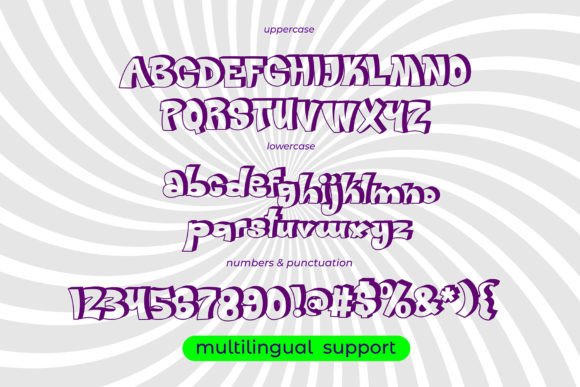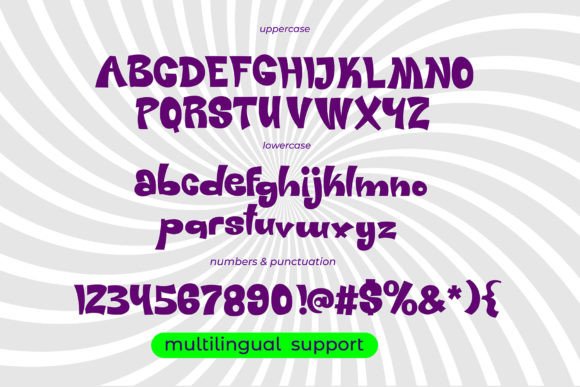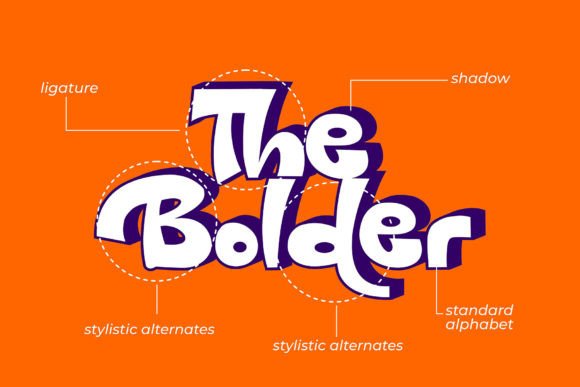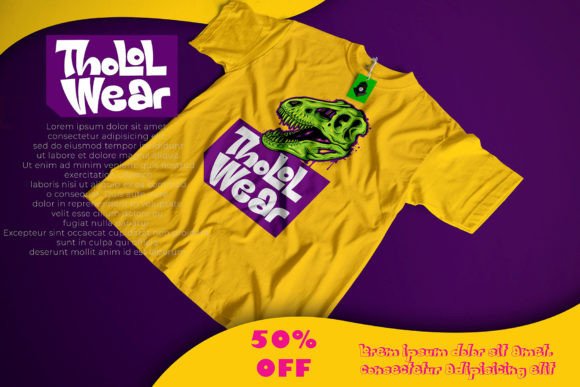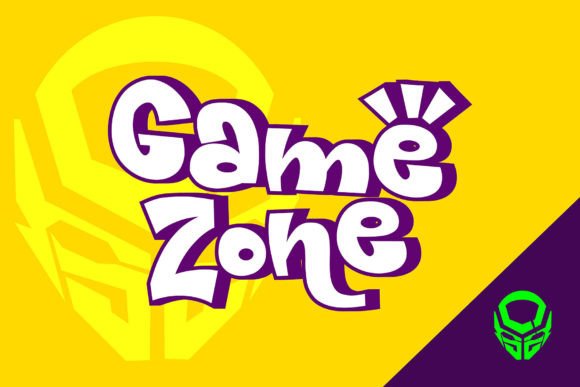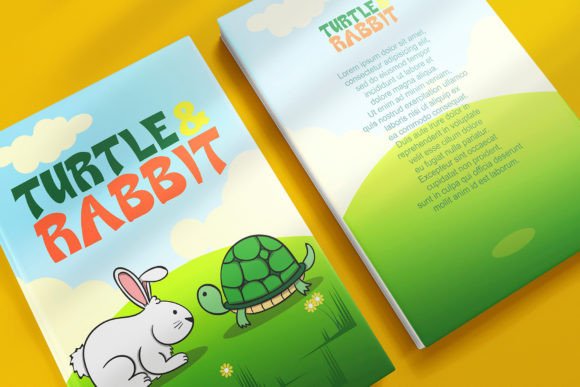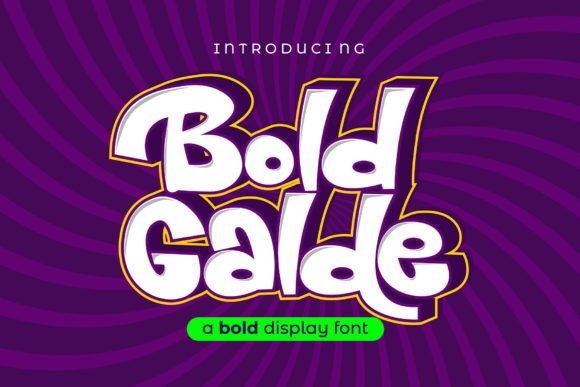
Introducing Bold Galde Font: The Perfect Choice for Kids’ Design Projects
Are you looking for a font that can add a touch of playfulness and charm to your design projects aimed at children? Look no further than Bold Galde Font! This adorable display font is specifically designed to capture the attention of young audiences, making it an excellent choice for children’s games, educational materials, book covers, and school-related projects.
The Playful and Friendly Appearance of Bold Galde Font
Bold Galde Font boasts a playful and friendly appearance that is sure to delight kids and make your designs more engaging and enjoyable. The font’s cute and whimsical style is perfect for creating a fun and lively atmosphere, making it an ideal choice for designers and crafters who work on projects for children.
Why Choose Bold Galde Font for Your Design Projects?
• Perfect for kids’ design projects: Bold Galde Font is specifically designed for children’s design projects, making it an excellent choice for games, educational materials, book covers, and school-related projects.
• Playful and friendly appearance: The font’s playful and friendly style adds a touch of whimsy and charm to your designs, making them more engaging and enjoyable for young audiences.
• Easy to read: Despite its playful appearance, Bold Galde Font is easy to read, making it perfect for use in educational materials, book covers, and other projects where readability is crucial.
• Versatile: Bold Galde Font can be used for a wide range of design projects, from digital designs to print materials, making it a versatile addition to your font collection.
How to Use Bold Galde Font in Your Design Projects
Using Bold Galde Font in your design projects is easy! Here are a few tips to get you started:
• Pair it with other fonts: Bold Galde Font pairs well with other fonts, making it easy to create a unique and visually appealing design.
• Use it for headings and titles: The font’s playful and friendly appearance makes it perfect for use in headings and titles, adding a touch of whimsy and charm to your designs.
• Experiment with colors: Bold Galde Font looks great in a variety of colors, so don’t be afraid to experiment and find the perfect color scheme for your design project.
Design Project Ideas Using Bold Galde Font
Here are a few design project ideas that you can use Bold Galde Font for:
• Children’s book covers: Use Bold Galde Font to create eye-catching book covers that will appeal to young readers.
• Educational materials: The font’s playful and friendly appearance makes it perfect for use in educational materials, such as worksheets, activity sheets, and educational posters.
• Kids’ games: Use Bold Galde Font to add a touch of fun and playfulness to your kids’ games, making them more engaging and enjoyable for young players.
• School projects: Bold Galde Font is a great choice for school projects, such as posters, presentations, and brochures.
In conclusion, Bold Galde Font is a cute and playful display font that is perfect for design projects aimed at children. Its playful and friendly appearance adds a touch of whimsy and charm to your designs, making them more engaging and enjoyable for young audiences. With its ease of use, versatility, and wide range of design project applications, Bold Galde Font is a great addition to any designer’s font collection.